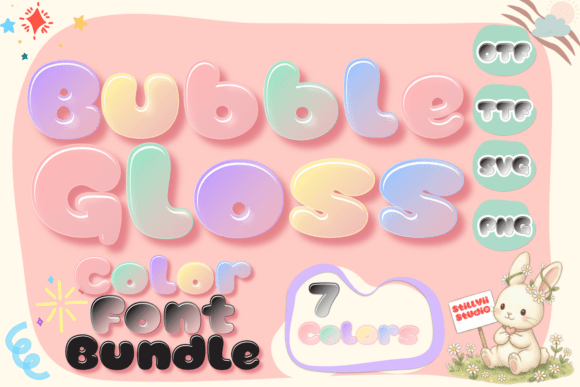
Who hasn’t felt that rush of excitement when brainstorming a new creative project, envisioning the perfect font that captures the essence of their idea? For designers, this moment is often the starting point of a thrilling journey, where the right typography can make all the difference. Recently, I stumbled upon a font that embodies the very spirit of this creative thrill – the Bubble Gloss Font.
This multi-color font bundle is more than just a pretty face; it’s a carefully crafted tool designed to elevate your designs to the next level. With its unique blend of pillowy letterforms and soft pastel gradients, the Bubble Gloss Font is perfect for adding a touch of sweetness to your projects. Whether you’re working on a logo for an independent toy store or a custom sticker design, this font is sure to make your work stand out.
With seven vibrant colorways to choose from, the Bubble Gloss Font offers unparalleled versatility, making it an invaluable asset for designers looking to add a touch of whimsy to their work.
Bubble Gloss Font Key Features
• Font Size: 4,000+ glyphs, including letters, numbers, punctuation, and symbols
• Unique Characteristics: Features a unique, glossy bubble effect on letters and symbols
• Font Style: Modern, playful, and elegant, suitable for various design applications
Bubble Gloss Font Review
I recently had the chance to work with the Bubble Gloss Font, and I must say, it’s a unique and eye-catching choice for any design project. ✨ The font’s playful, bubbly style immediately catches the eye and adds a touch of whimsy to any text.
Some of the strengths of this font include:
• Its versatility – the Bubble Gloss Font works well in both digital and print designs, making it a great choice for a variety of projects.
• Its legibility – despite its playful appearance, the font is surprisingly easy to read, even at smaller sizes.
• Its customization options – the font comes with a range of styles and effects, allowing designers to add an extra layer of depth to their designs.
• ⚠️ The font may not be suitable for formal or professional projects, as its playful style may come across as too casual.
• ⚠️ Some users may find the font’s bold lines and rounded shapes to be distracting or overwhelming, particularly in large blocks of text.
Overall, I would say that the Bubble Gloss Font is a fun and creative choice for designers looking to add some personality to their projects. While it may not be the best fit for every project, it’s definitely worth considering for those looking to add a touch of whimsy to their designs.
The Bubble Gloss Font is ideal for:
• Designing social media graphics and advertisements.
• Creating eye-catching headings and titles.
• Adding a touch of elegance to your branding and marketing materials.
Q: Can I customize the Bubble Gloss Font to fit my design needs?
Yes, you can customize the Bubble Gloss Font to fit your design needs. Our font is designed to be highly customizable, with advanced features such as ligatures, swashes, and contextual alternates. You can use design software like Adobe Illustrator or Photoshop to customize the font, or use font editing software like FontLab to make